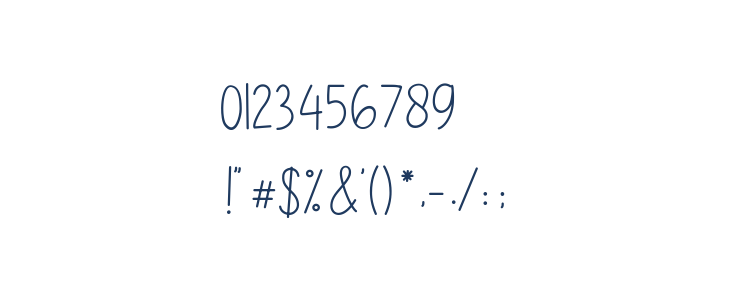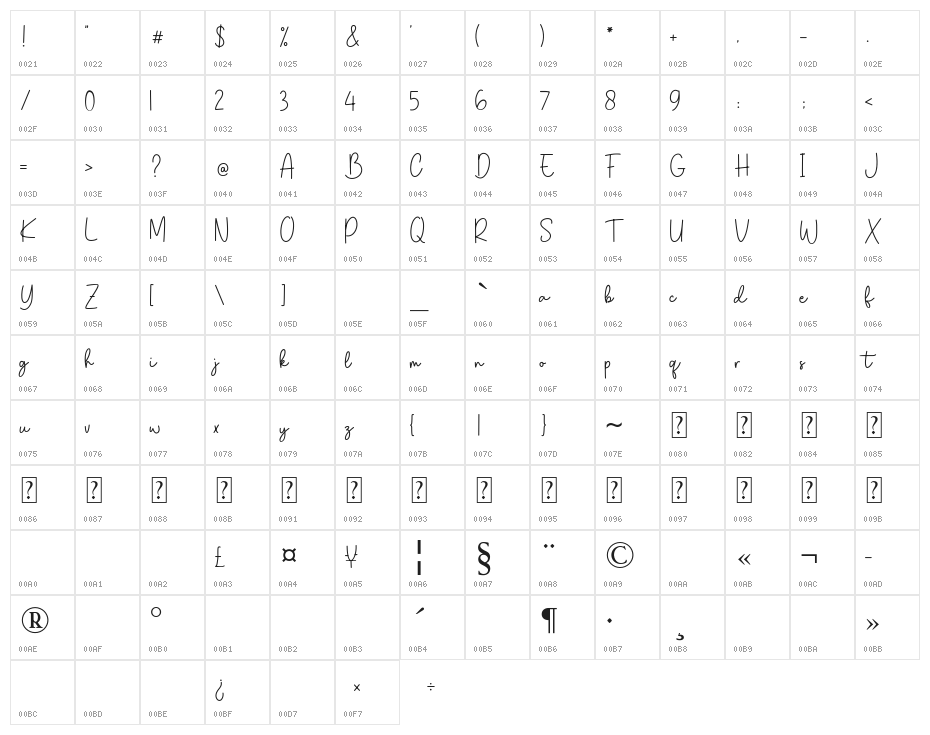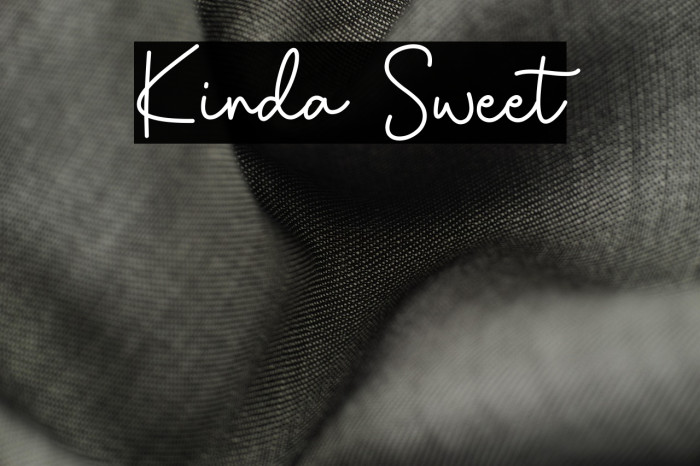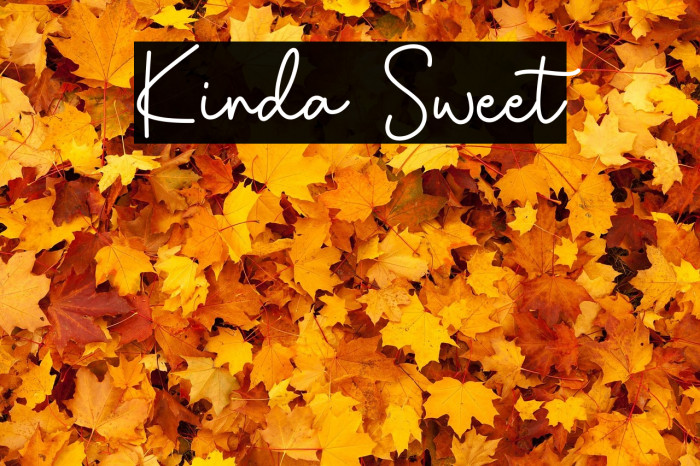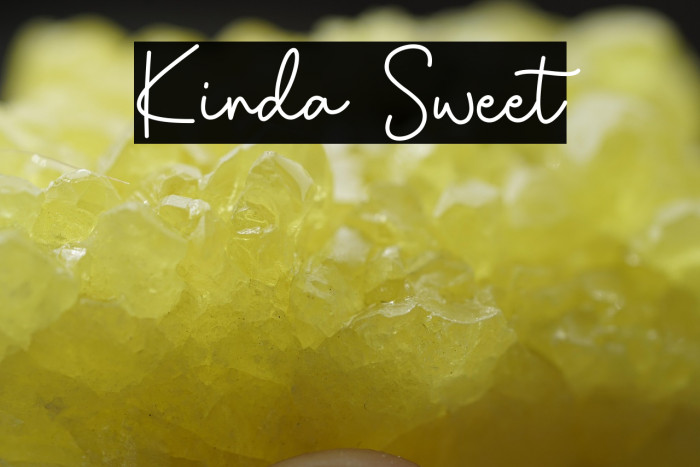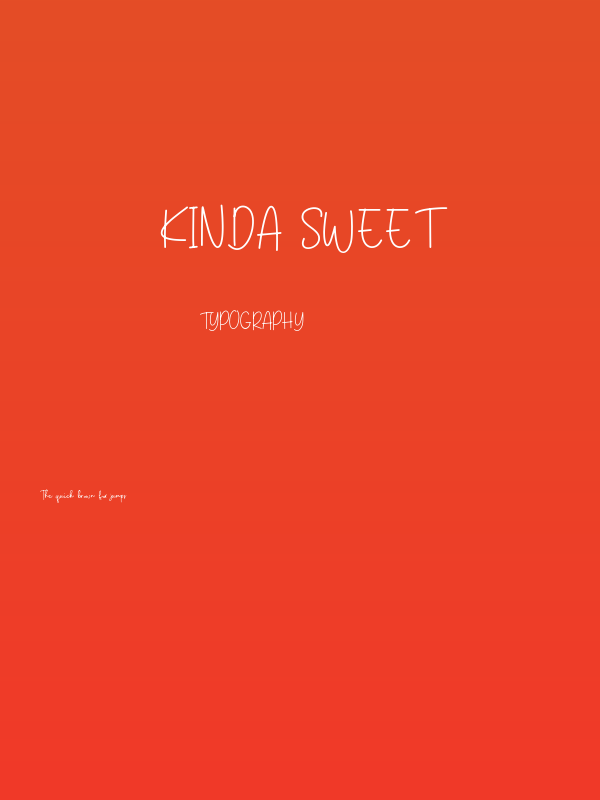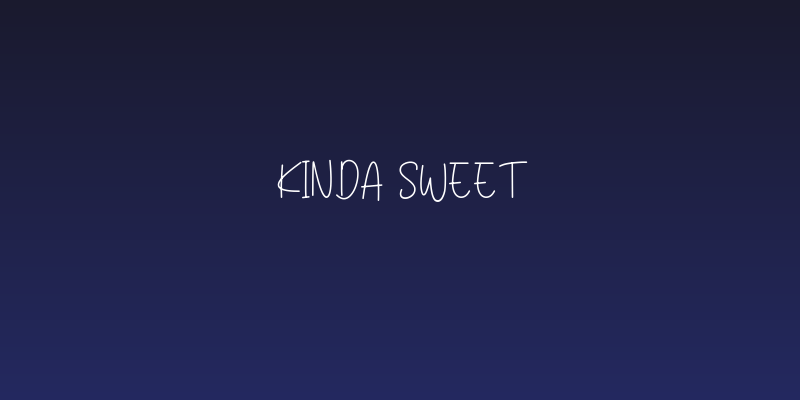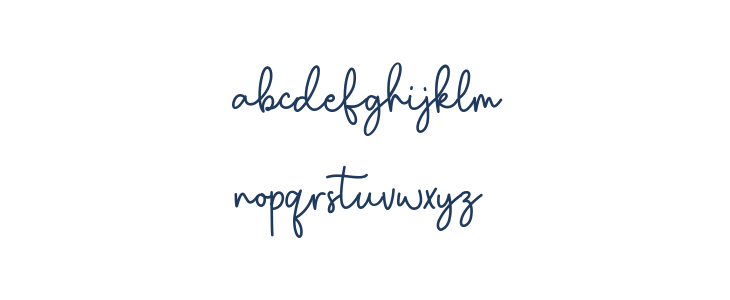
Kinda Sweet Font
Kinda Sweet Description
This font features a playful and casual handwritten style, combining both uppercase and lowercase letters with a whimsical flair. The uppercase letters are tall and slender, with a slight tilt that adds a dynamic feel. The lowercase letters are more rounded and connected, resembling a cursive script that flows smoothly across the baseline. The numerals maintain the playful aesthetic, with consistent stroke widths that ensure readability. Special characters are included, matching the overall style with a touch of creativity. This font is perfect for projects that require a personal and friendly touch.
| Proposed Projects | Ideal for greeting cards, invitations, personal branding, and social media graphics. |